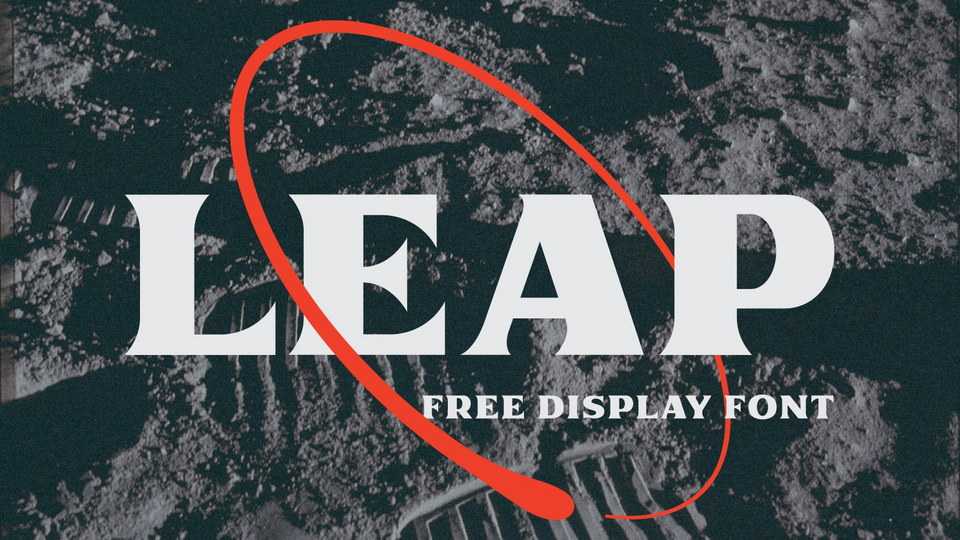
Download Leap font, a bold display typeface inspired by @nasa’s famed “meatball” logo. Leap font is perfect for to create short powerful phrases and headlines, posters, packaging and other projects with a little retro mood feel.
Designer: Ross Shafer